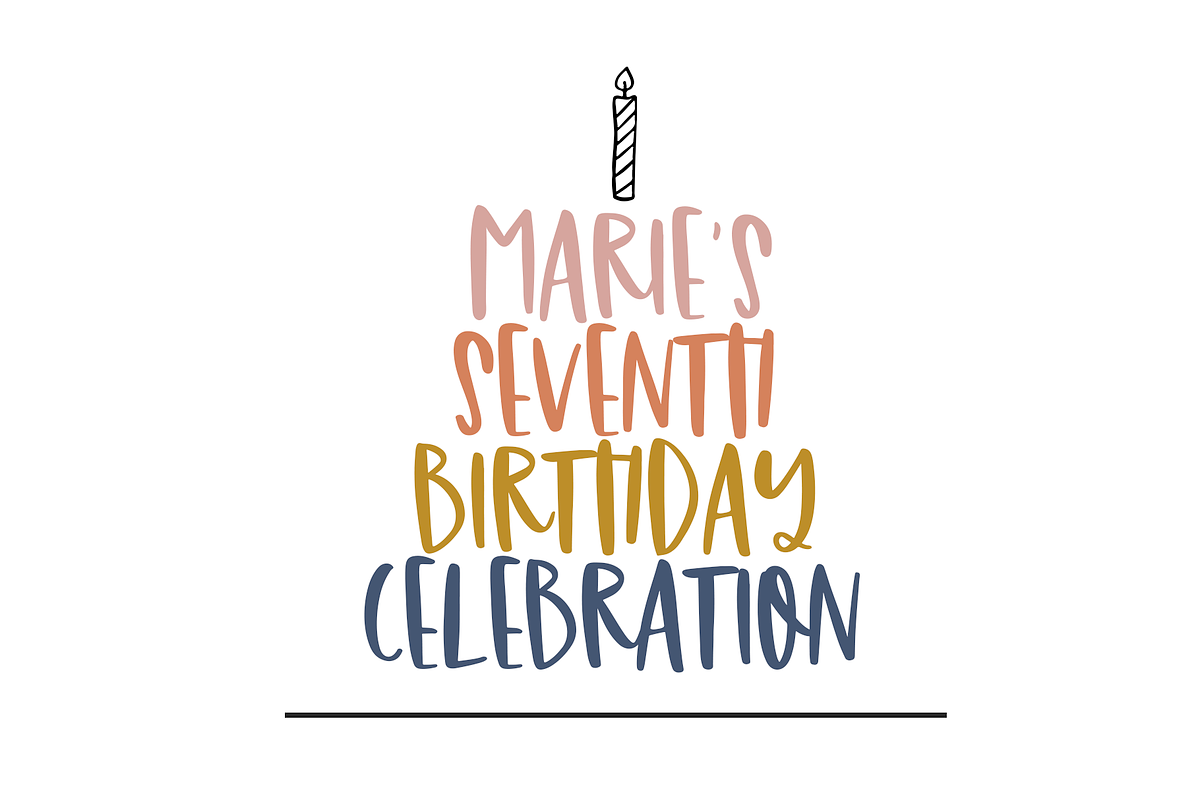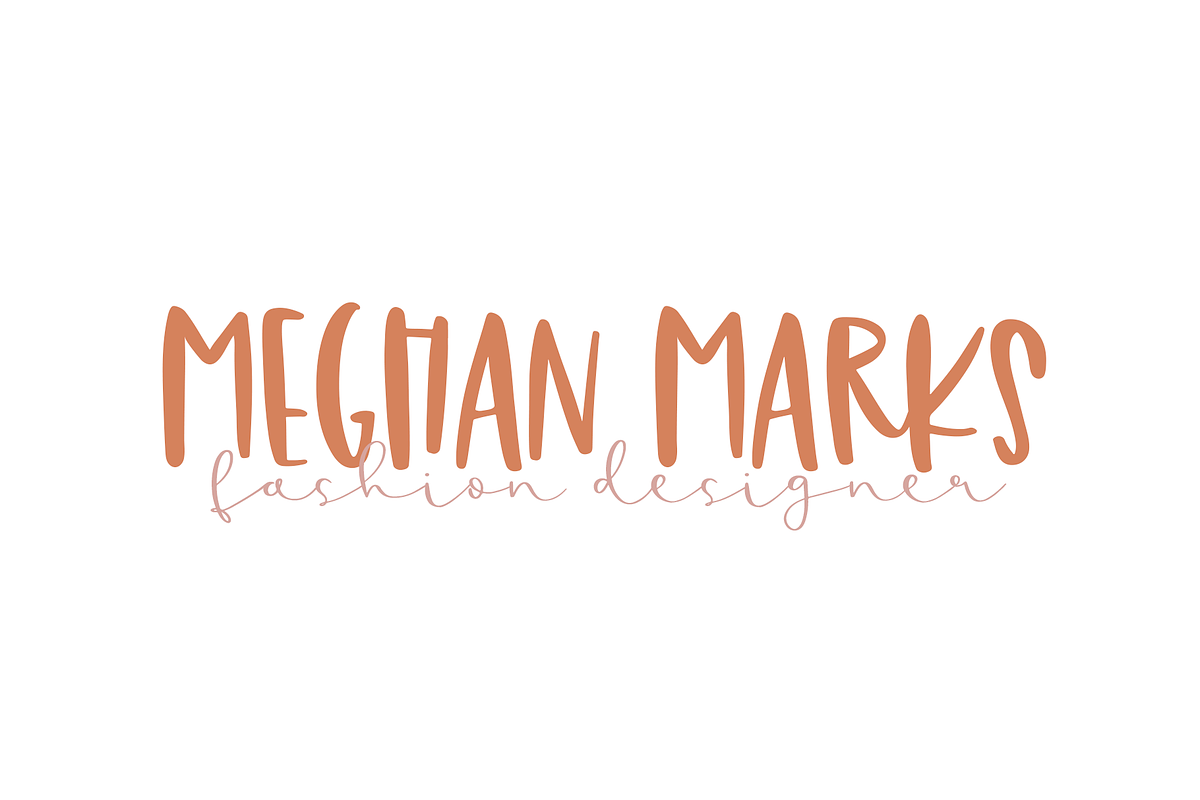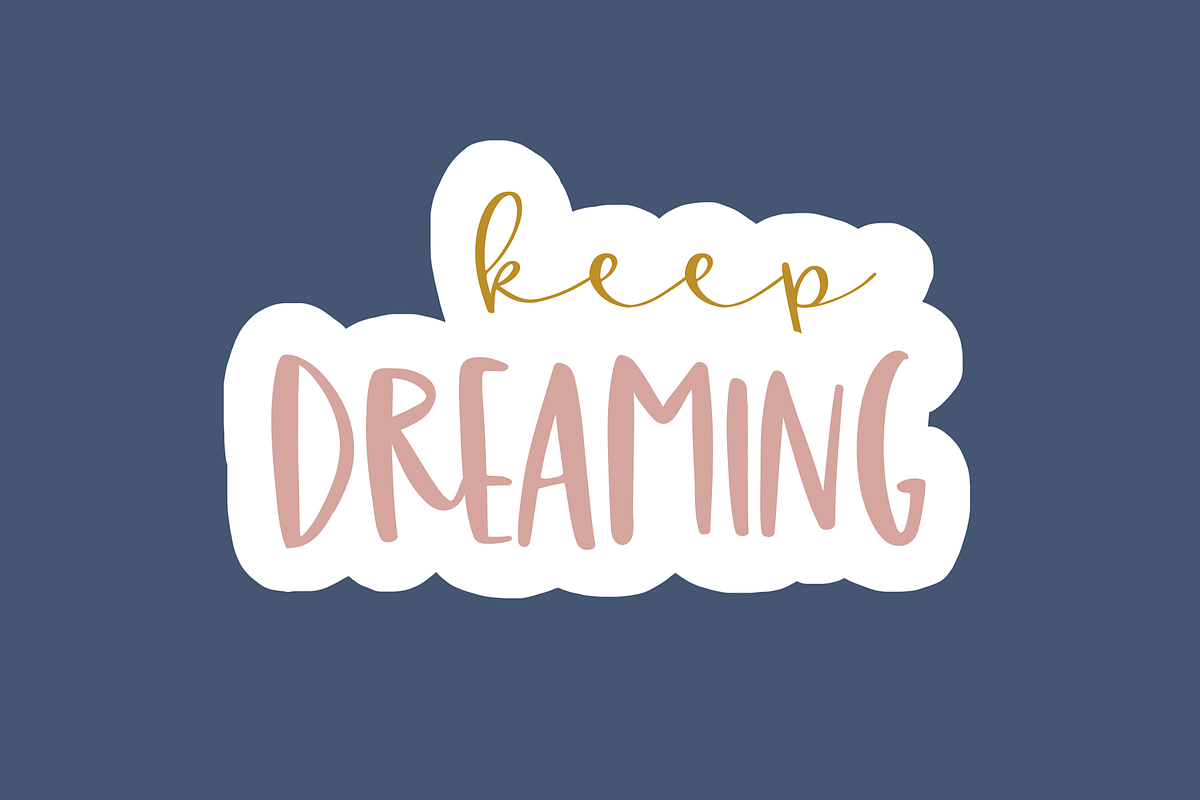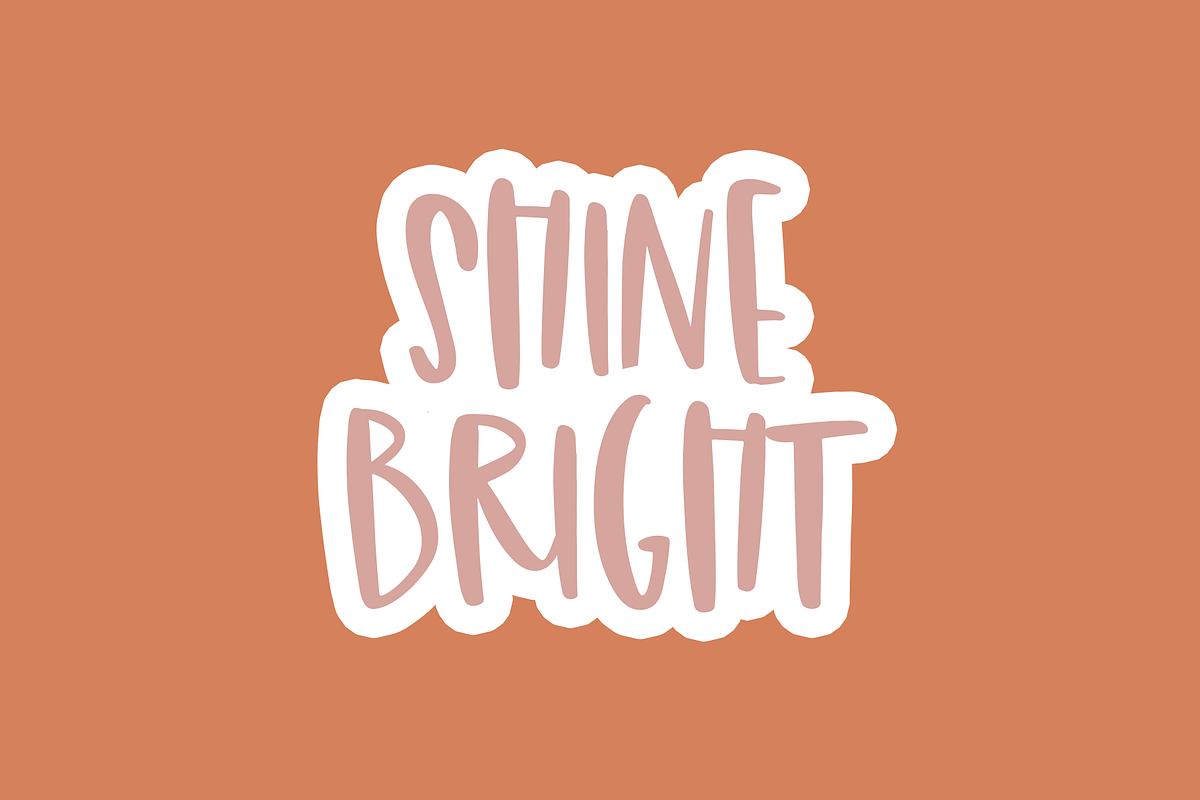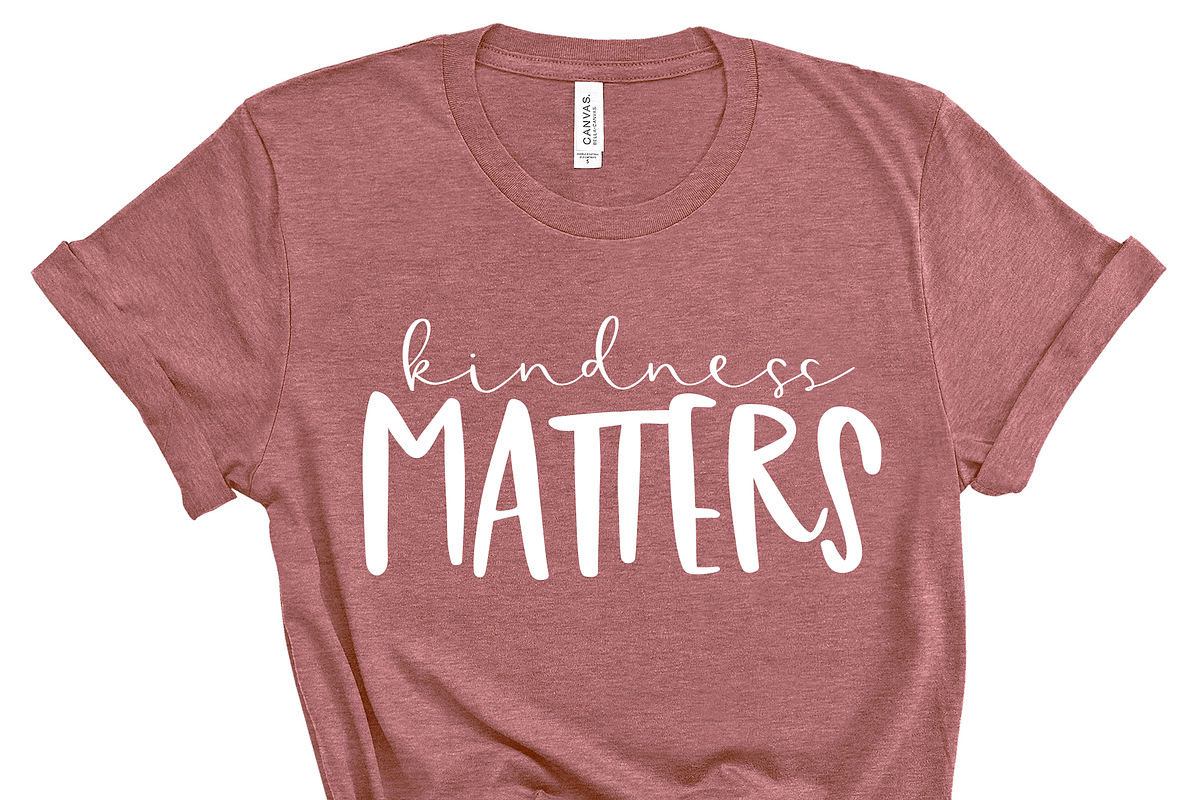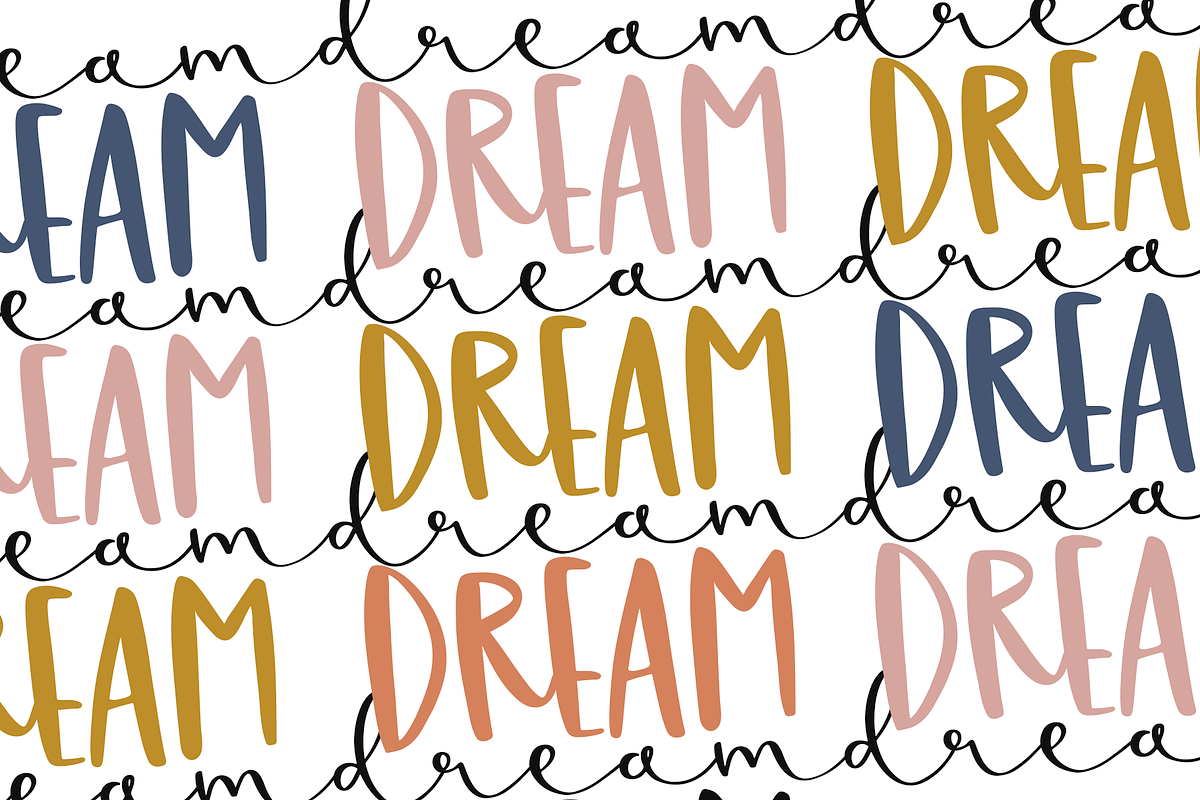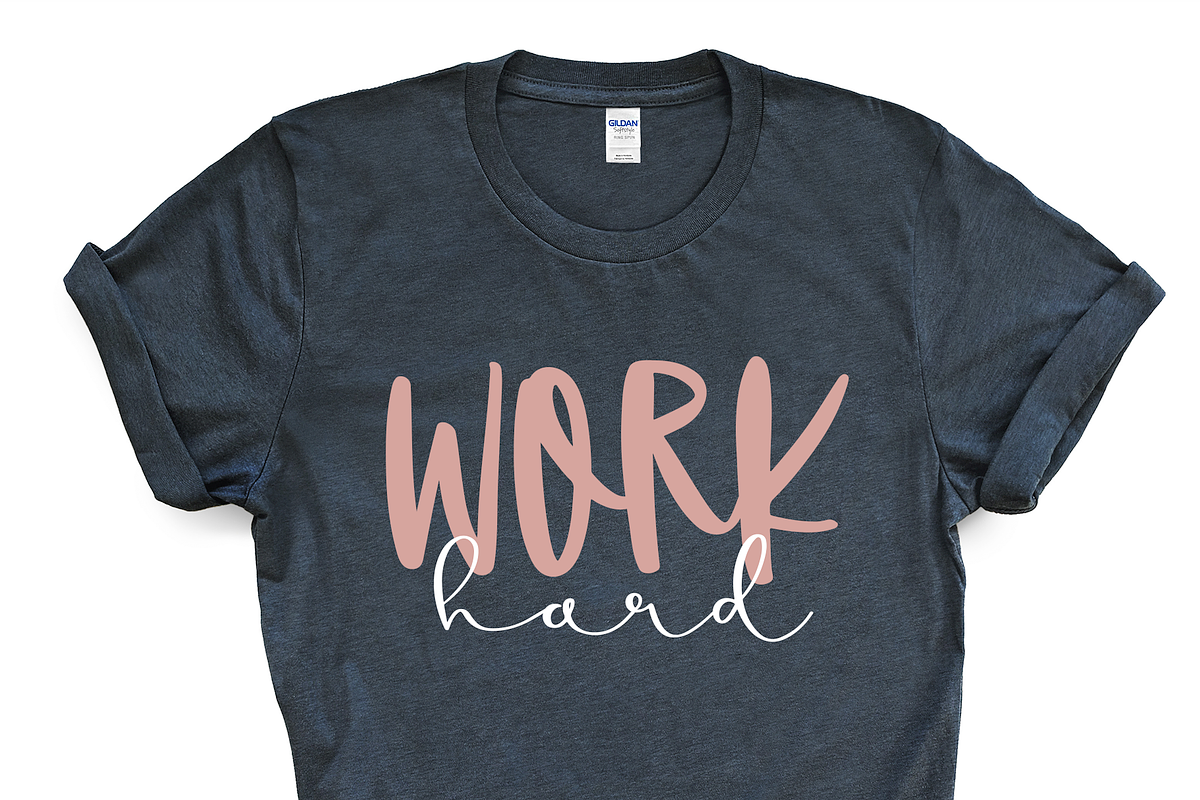
Sugar Sparkle | Font Duo
Sugar(drop) Sparkle is a fun & quirky print/script font duo. This duo pairs up perfectly together for all of your cute designs!
Most accent characters included.